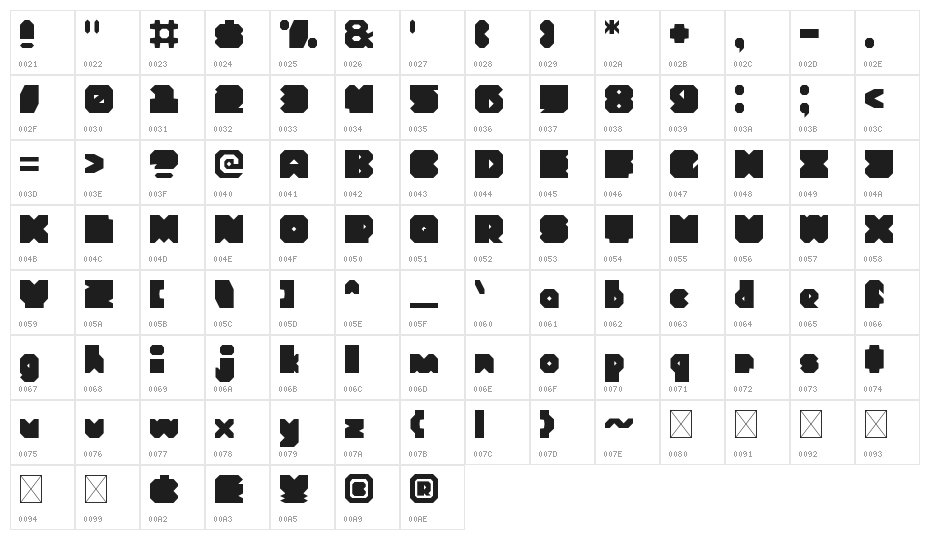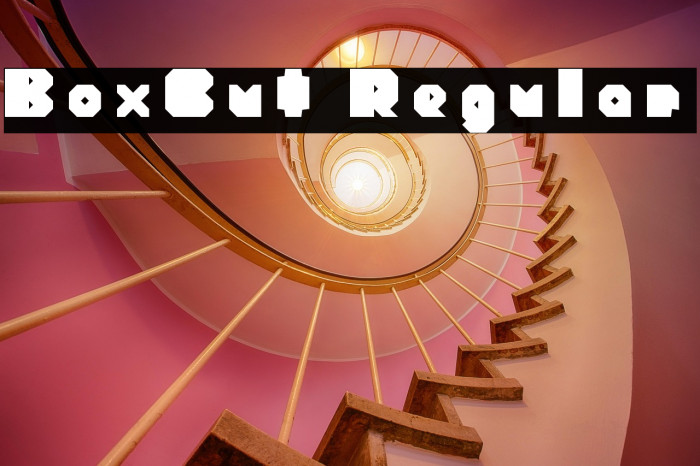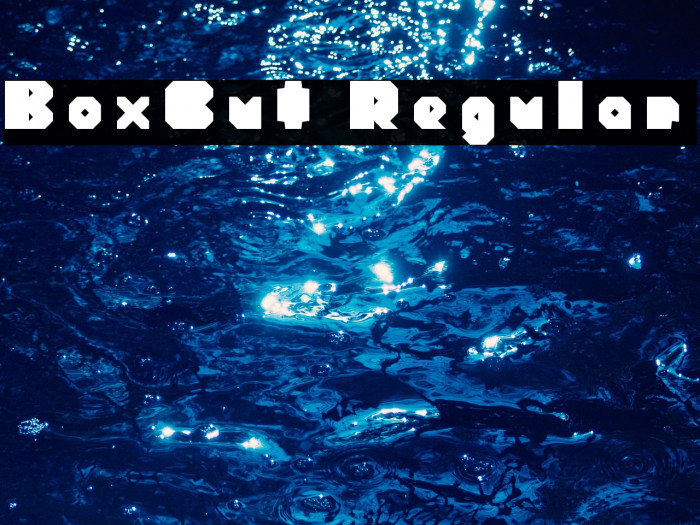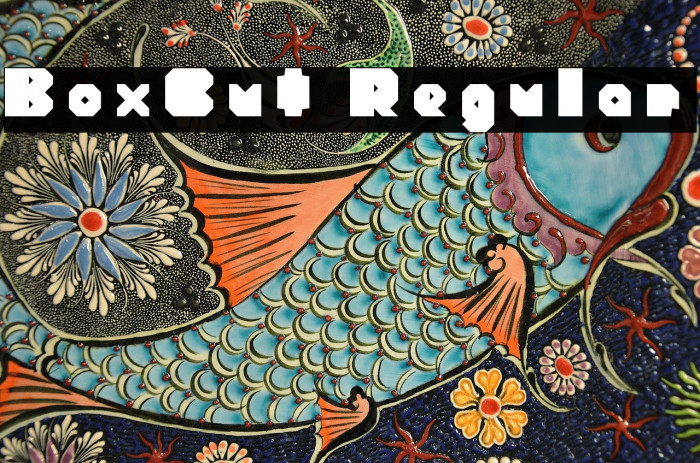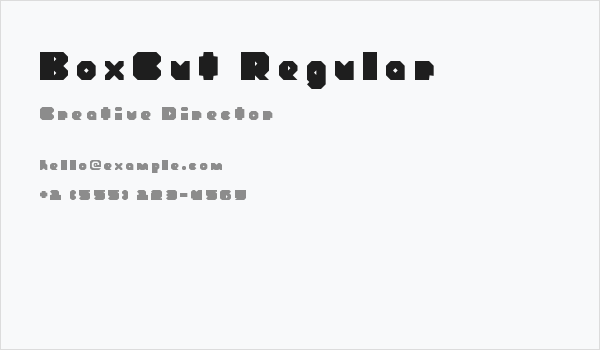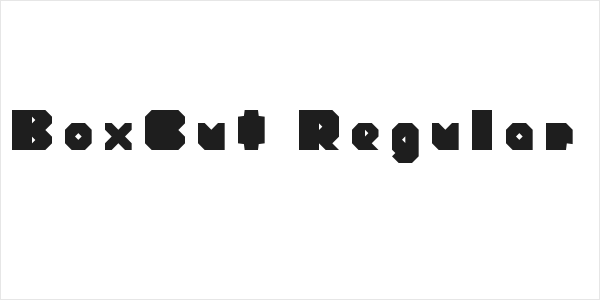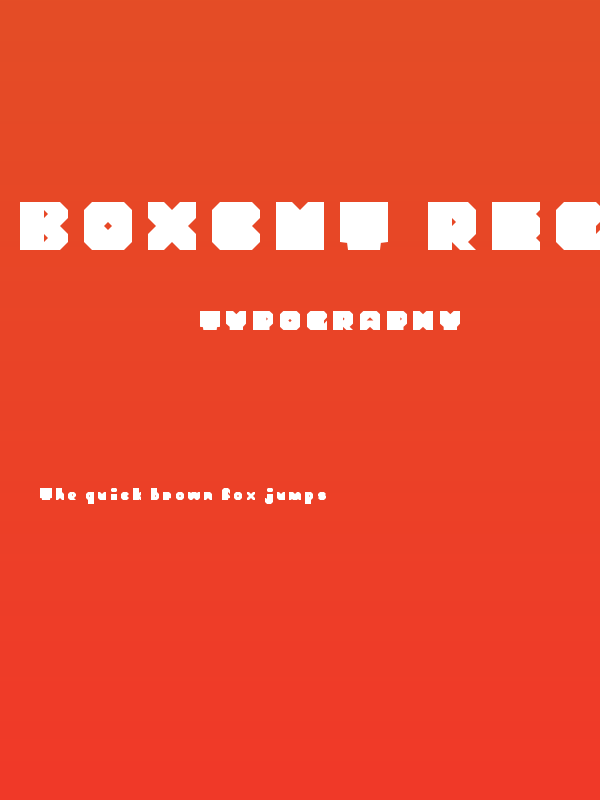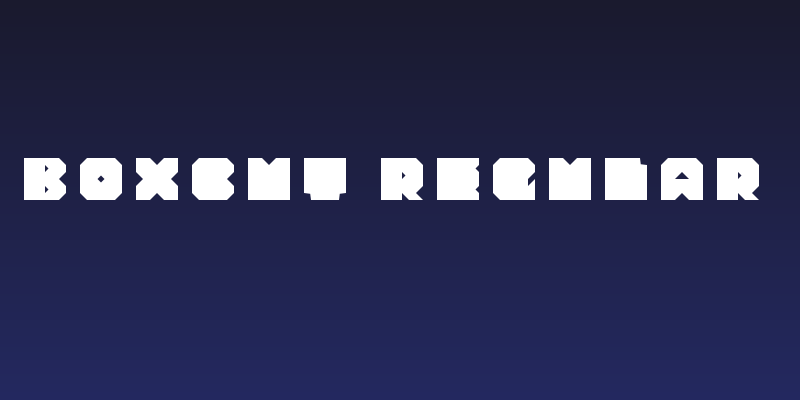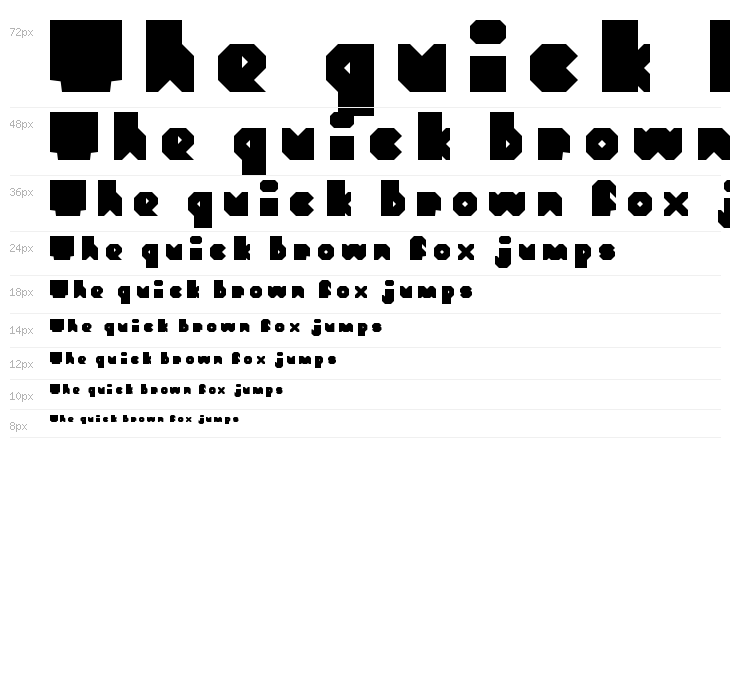
BoxCut Regular Font
BoxCut Regular Description
This font features a bold, geometric design with a distinct blocky appearance. Each character is crafted with sharp angles and straight lines, creating a modern and edgy aesthetic. The uppercase and lowercase letters maintain a consistent style, with a strong emphasis on symmetry and uniformity. Numbers and special characters are designed to match the boldness and angularity of the alphabet, ensuring a cohesive look across all text. The font's unique style makes it stand out, ideal for projects that require a strong visual impact.
| Use Case | Logos, Headlines, Posters |
| Proposed Projects | Ideal for posters, logos, branding, and any design requiring a strong visual presence. |